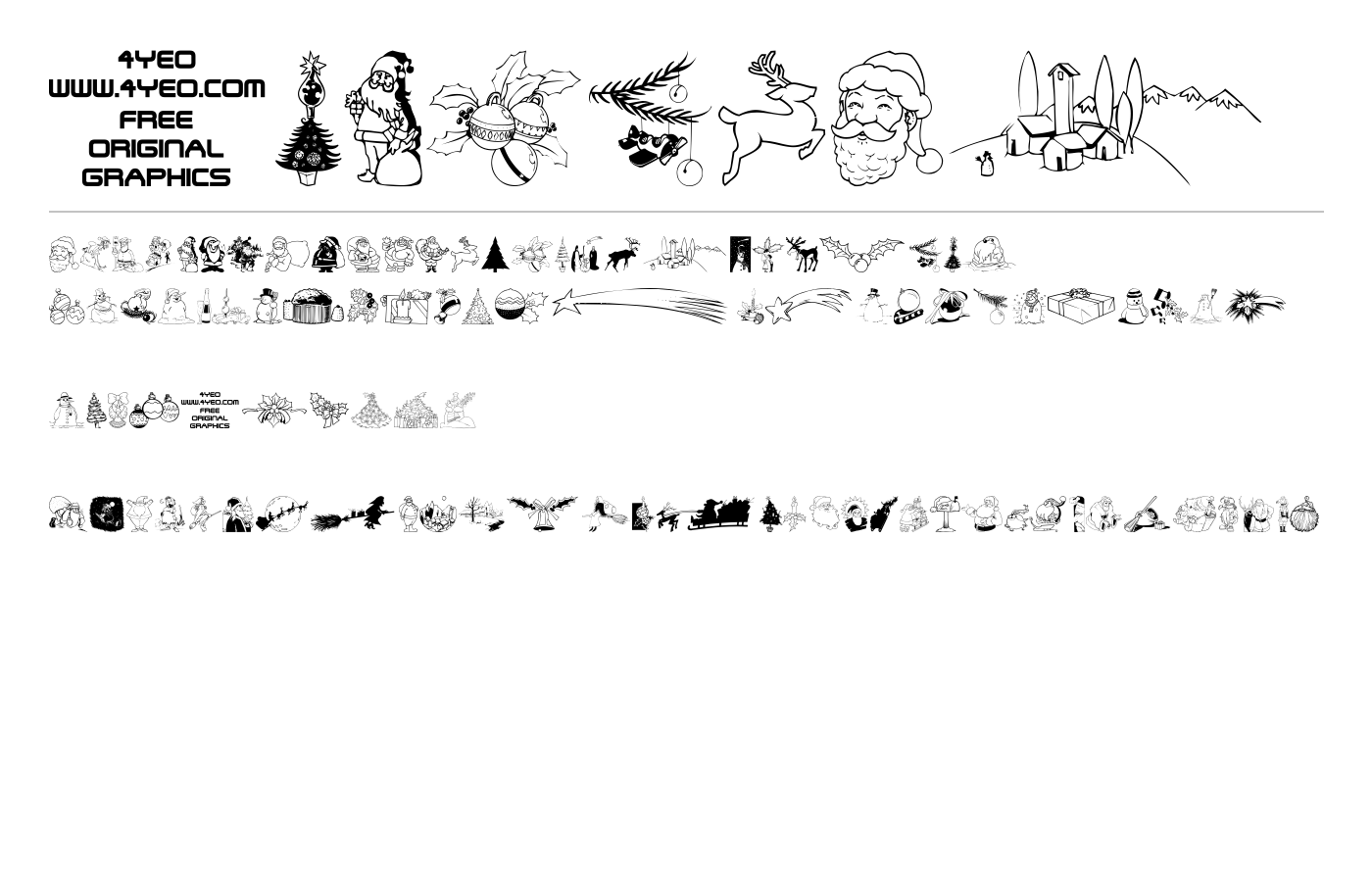
4YEOXMAS is a playful dingbat-style font filled with charming holiday-themed icons, ranging from festive characters to seasonal decorations. Its detailed black-and-white illustrations make it perfect for adding a whimsical and joyful touch to Christmas cards, seasonal packaging, and cheerful holiday designs. This font works well when you need to convey warmth and festive spirit through decorative elements rather than traditional text.
4YEOXMAS Font